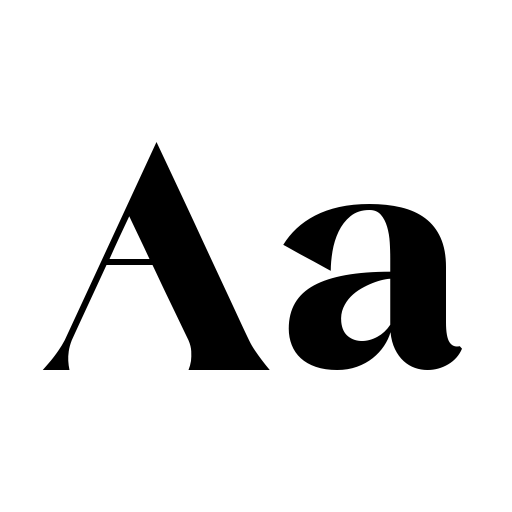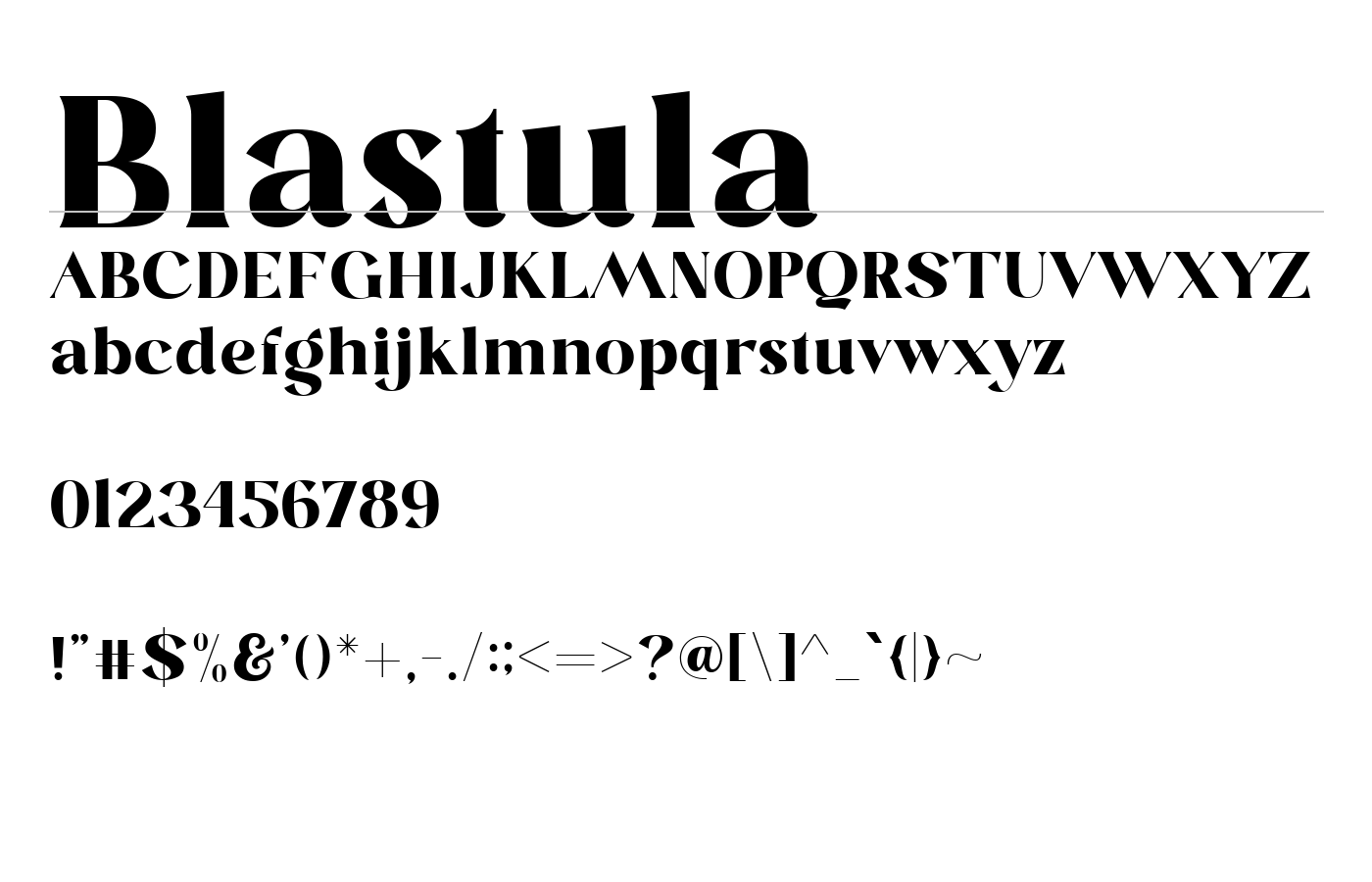
Blastula is a bold serif font with a striking contrast between thick and thin strokes, giving it an elegant yet modern flair. Its sharp, slightly condensed letterforms and distinctive bracketed serifs lend a sophisticated, commanding presence ideal for fashion branding, editorial headlines, and luxury packaging. This font's unique personality effortlessly combines classic refinement with contemporary edge, making it perfect for designs aiming to stand out with style and confidence.
Blastula Font
About Blastula Font
| Designer | 177Studio.com |